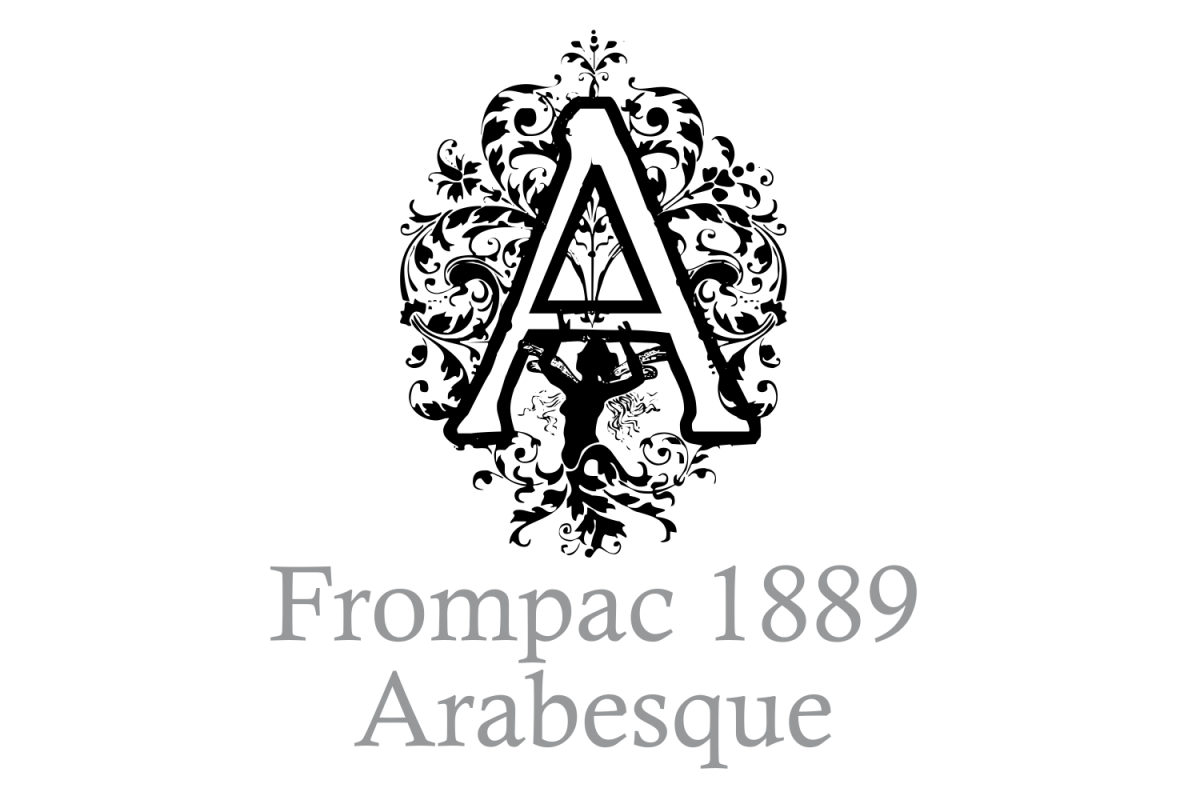
Frompac 1889 Arabesque
The font here used is the Intellecta’s Frompac joined and art worked with the classical arabesques published in the Ludwig Petzendorfer’s Schriften-Atlas. Eine Sammlung der wichtigsten Schreib- und Druckschriften aus alter und neuer Zeit nebst Initialen, Monogrammen, Mappen, Landeskarten und heraldischen Motiven f¸r die praktischen Zwecke des Kunstgewerbes, 1889.